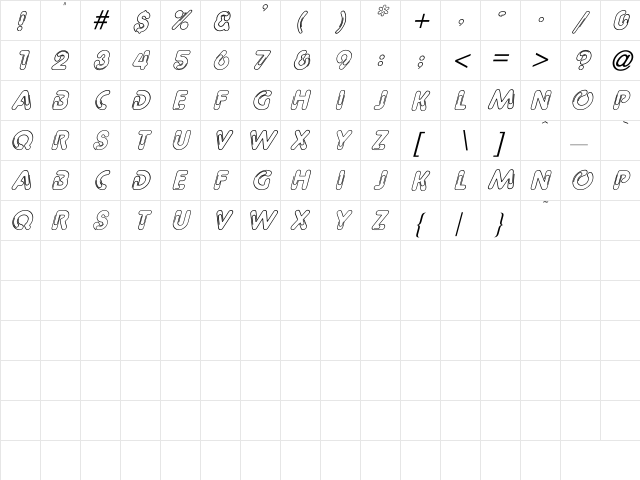
Paper Clip Italic Italic
Design Context for Paper Clip Italic Typeface
Paper Clip Italic is a composed and adaptable typeface that performs quietly and consistently across a wide range of design contexts. Its italic angle brings a sense of urgency and motion to the letterforms.
Pro Tip: Try Paper Clip Italic for annotation and caption copy alongside an upright companion — the contrast in angle creates a dynamic but ordered typographic system.